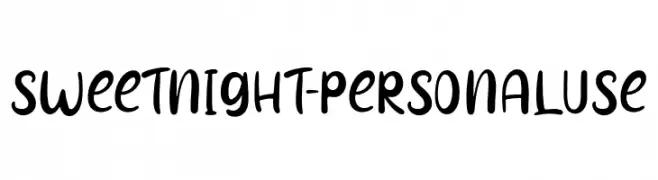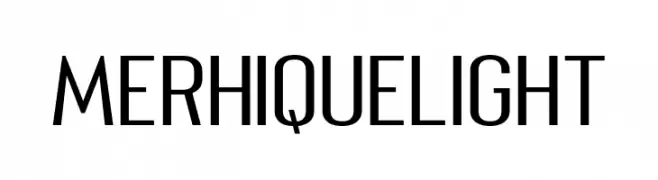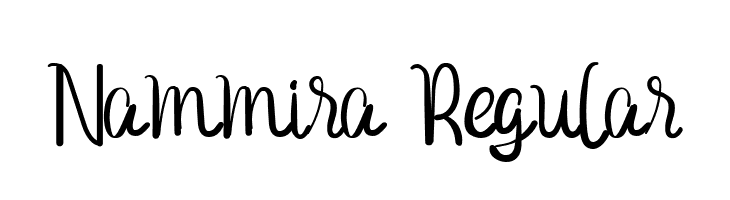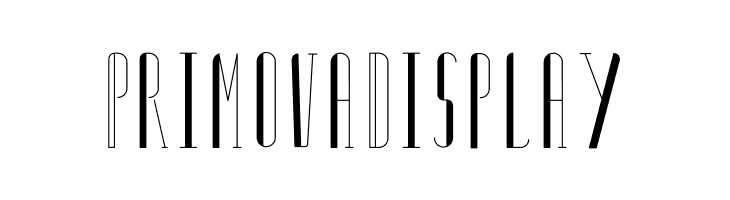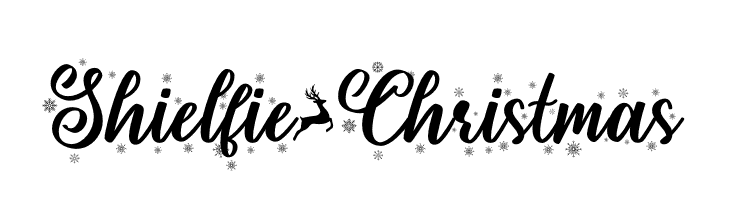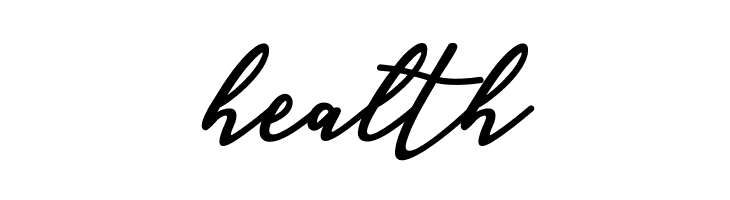
A lively and flowing script font with elegant curves and a playful touch.
A playful and whimsical script font with a handwritten style.
A bold, geometric font with a modern and playful aesthetic.
A bold, angular font with a modern and aggressive style.
A playful, casual handwritten font with smooth, flowing curves.
A modern, light sans-serif font with a sleek and professional appearance.
A bold, futuristic font with geometric, inverse-style characters.
A bold, expressive script font with a hand-drawn, textured style.
A clean, modern sans-serif font with smooth, rounded edges and balanced spacing.
A pixelated, retro font inspired by early digital displays and video games.